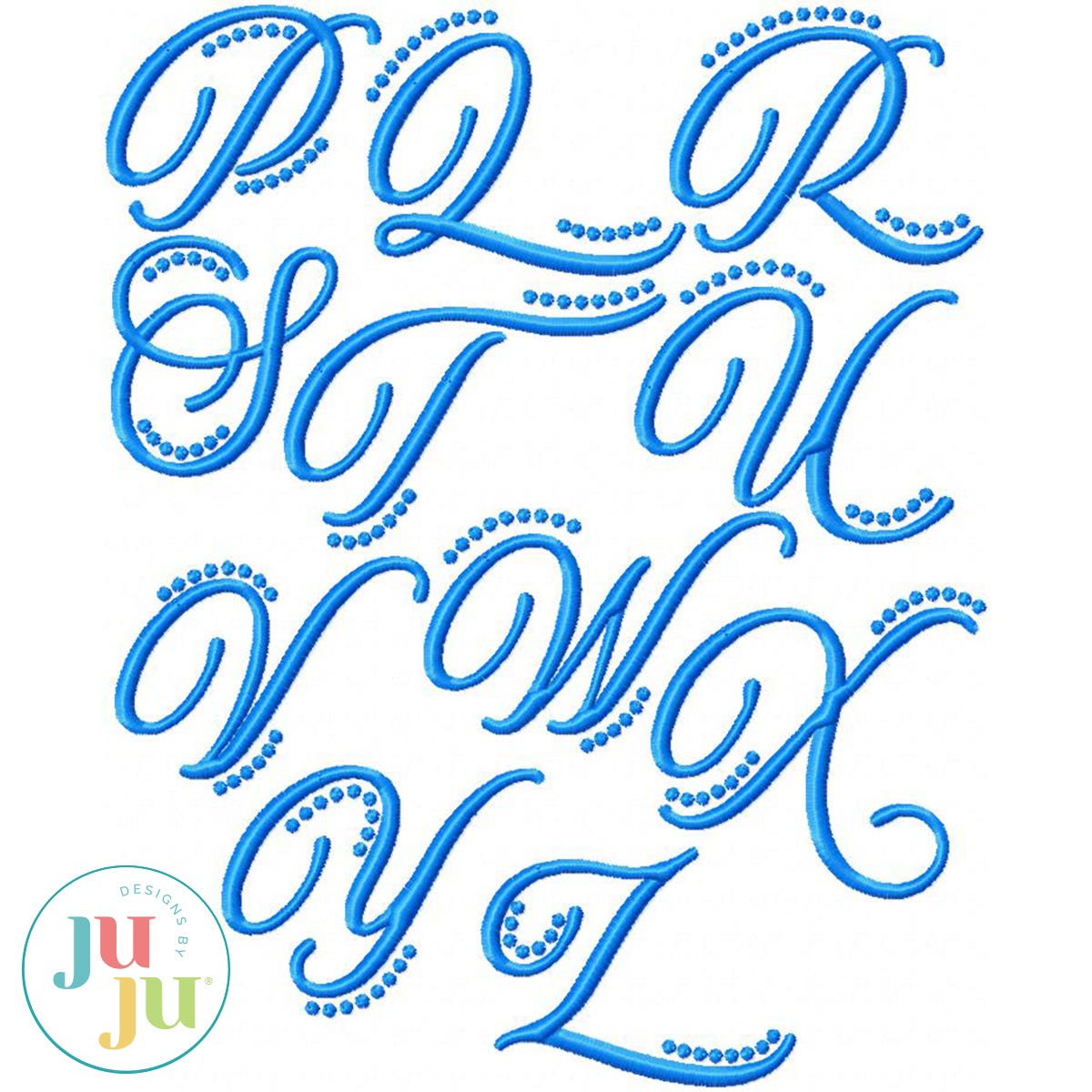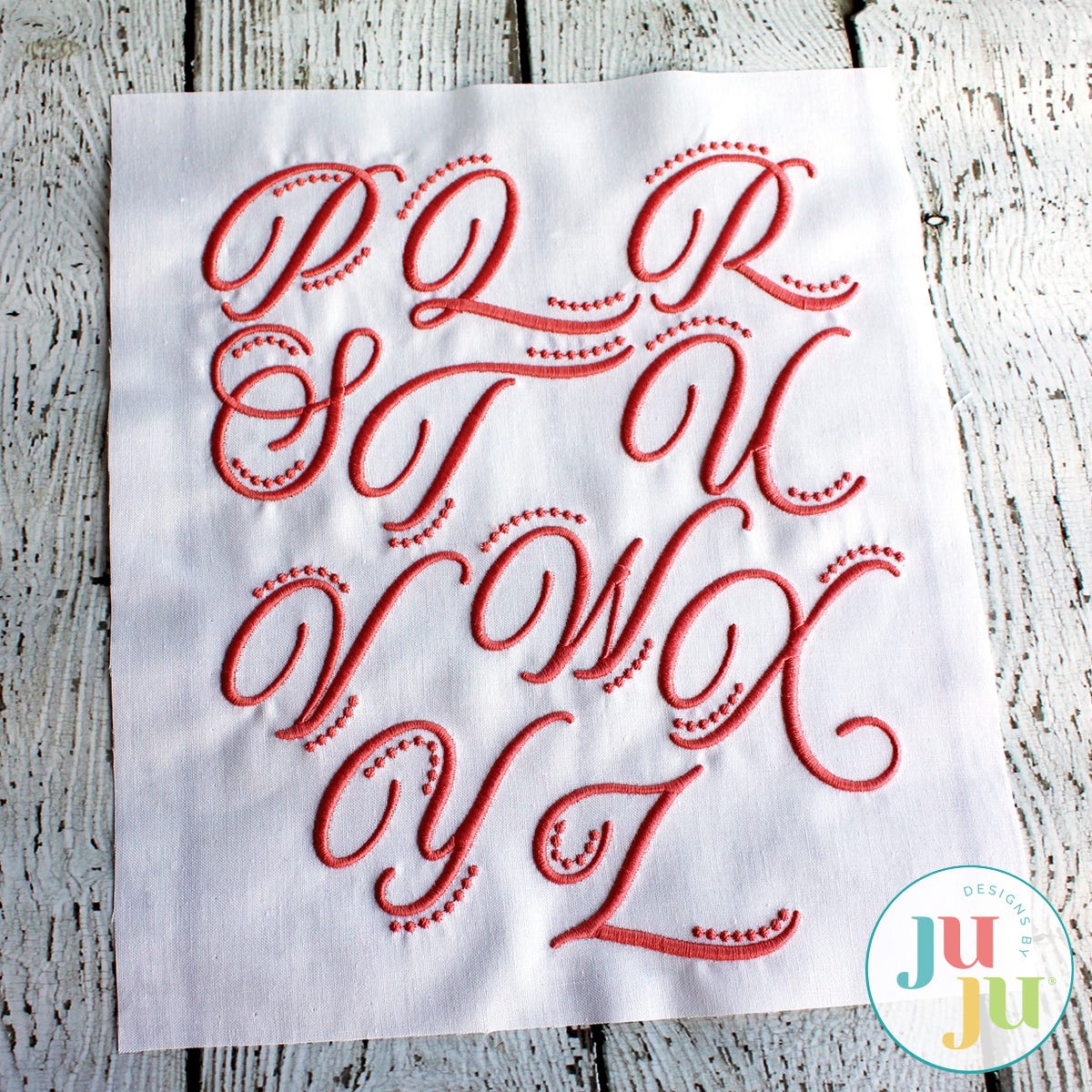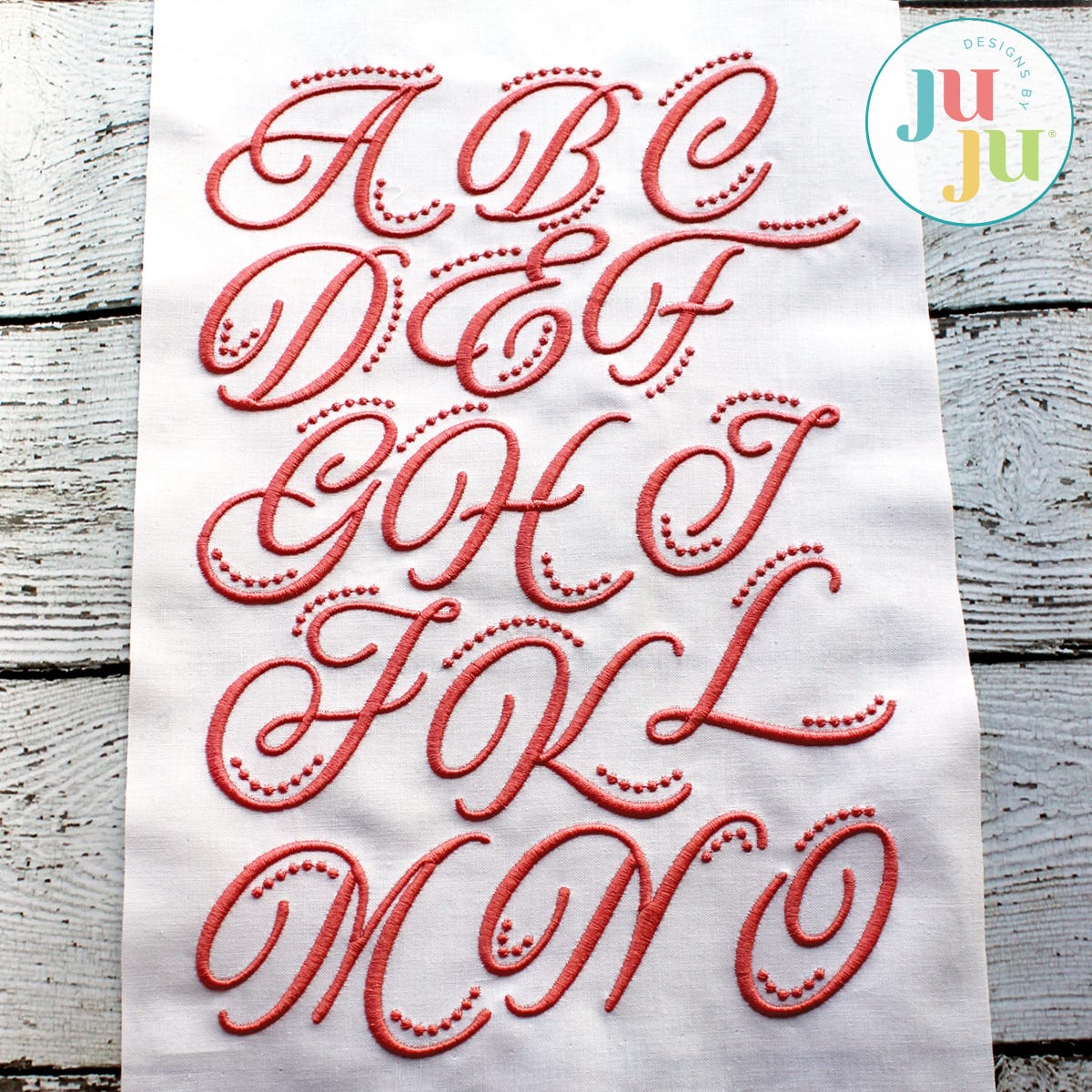
Aurora Satin Stitch Monogram Embroidery Font by Oma's Place
This elegant monogram is approximately 2" tall, with some letters larger due to their descendant characters. The French knots add an extra 0.25" to some of the letters. There are 26 capital letters; no numbers, no lower case letters, no punctuations.
Letter A (incl. French knots)
Letter J (incl. French knots)